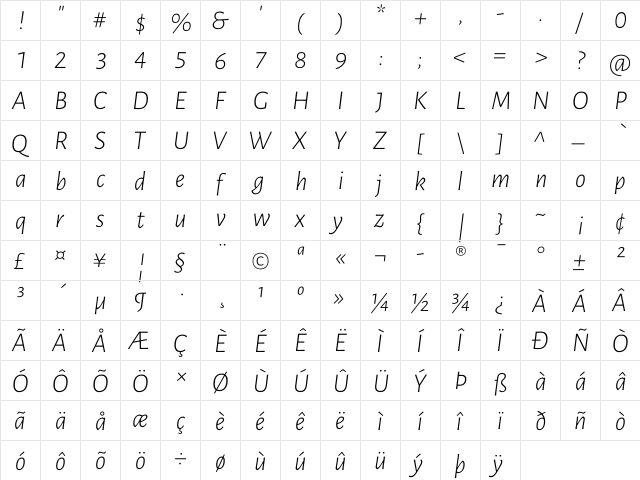
Luna Light Italic Font Preview
| Foundry | Huerta Tipografica |
| Designer | Juan Pablo del Peral |
Design Context for Luna Light Typeface
Luna Light takes a measured approach to typography — its balanced proportions and neutral character make it a reliable workhorse for both digital and print work. The slanted form adds forward momentum and visual energy. The delicate stroke weight brings airiness and refinement to layouts.
Pro Tip: Try Luna Light for annotation and caption copy alongside an upright companion — the contrast in angle creates a dynamic but ordered typographic system.